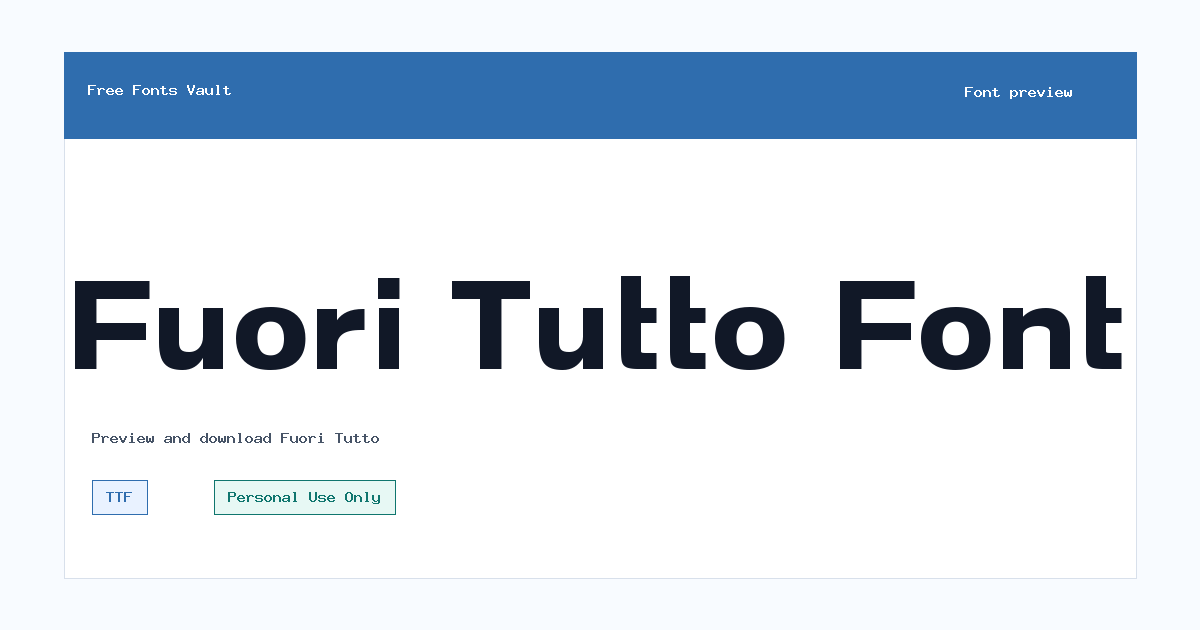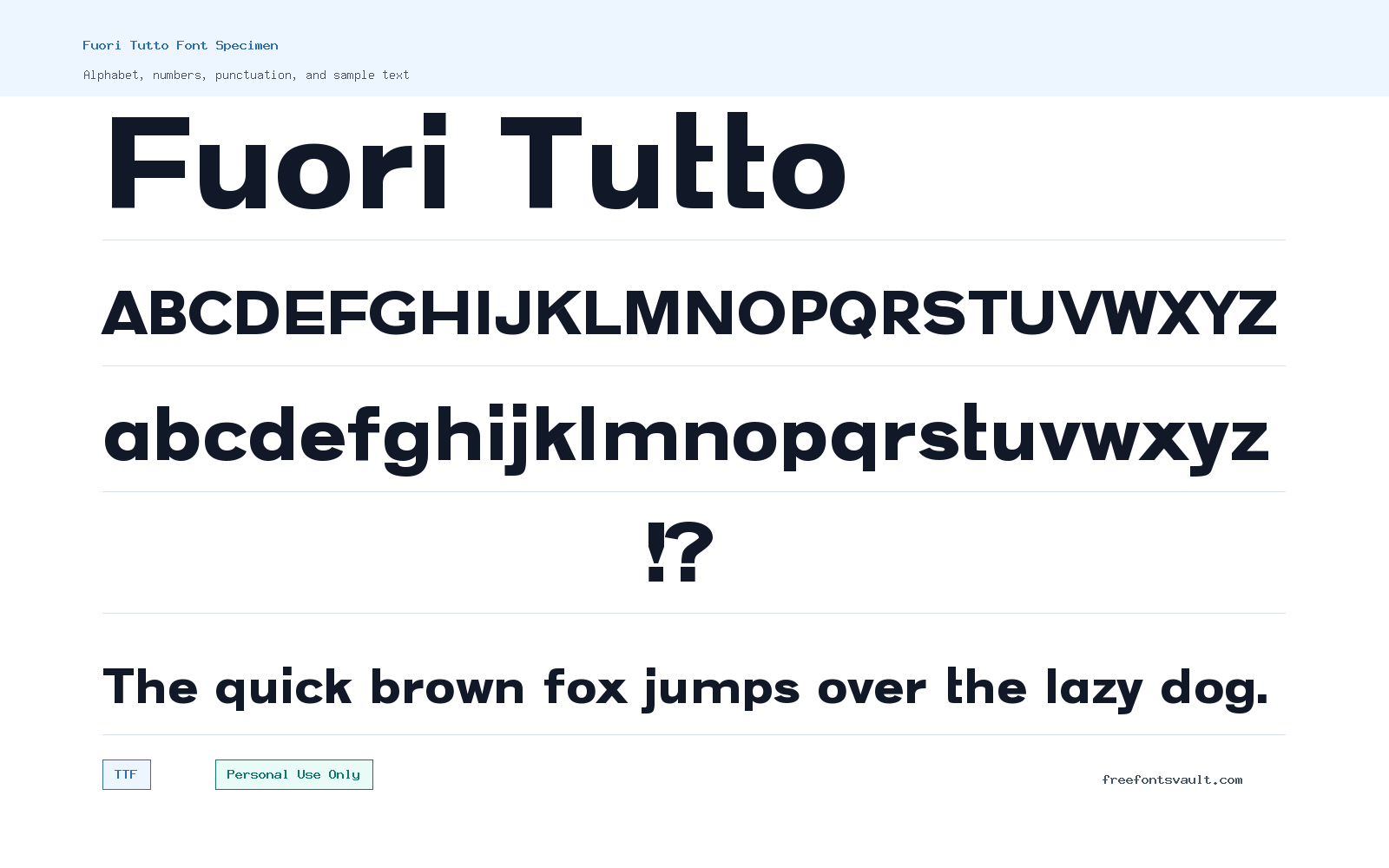
Fuori Tutto
Fuori Tutto font.
Fuori Tutto is a sans serif font offered as a regular TTF file for personal-use projects. It is a simple option to test when you need clean lettering for short text, mockups, or visual experiments.
About Fuori Tutto Font
Fuori Tutto is listed as a sans serif font, with one regular style in TTF format. Since the font comes as a normal 400-weight file, it is best approached as a single-style typeface rather than a large family with bold, italic, or light variations. That makes it easy to preview quickly: type your title, name, quote, or sample phrase and check how the letters sit together before using it in a finished design. Pay attention to spacing, punctuation, numbers, and uppercase words, because those details often decide whether a font works for a heading or only for small decorative moments.
For visitors comparing fonts, Fuori Tutto is most useful to test in compact layouts first. Try it in poster titles, social graphics, personal invitations, thumbnails, labels, and draft branding concepts. Because only one regular style is listed, pair it with a more flexible text font if your design needs long paragraphs, captions, or hierarchy. A neutral serif or highly readable sans serif can handle body copy while Fuori Tutto carries the headline or accent text. Before downloading, use the preview field with the exact words you plan to use, including any special characters, to make sure the font supports your text cleanly.
- Sans serif font style
- Single listed variant for quick previewing
- Best tested with short words, headings, and display text
- Personal poster titles and social media graphics
- Mockup headlines, labels, and short design drafts
- Invitation text, name graphics, and quote images
- Preview experiments before choosing a full font family
What kinds of projects suit Fuori Tutto best?
Start with short personal-use designs such as titles, labels, quote graphics, invitations, posters, and draft mockups rather than long body text.